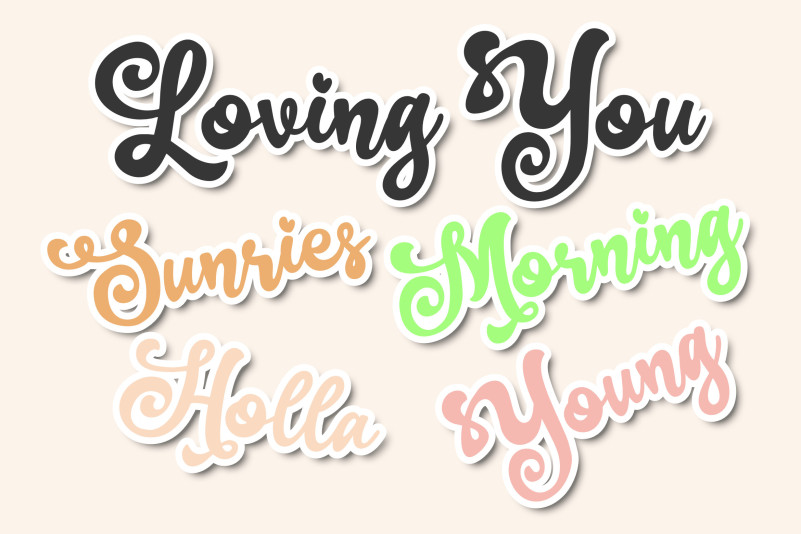
Andari Font
Andari Script Font is a lovely and timeless handwritten font. It is the best choice for creating eye-catching logos, branding, and quotes. Every letter has a unique and beautiful touch, which will make your design come alive!